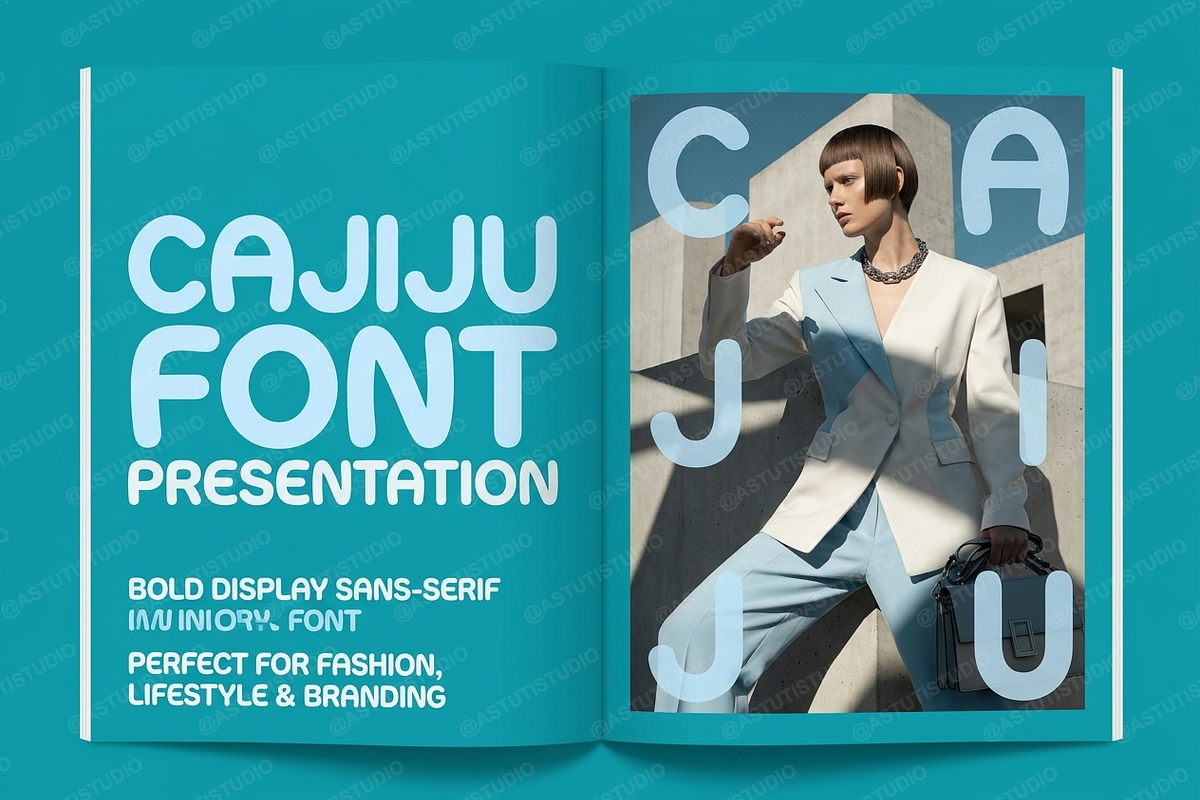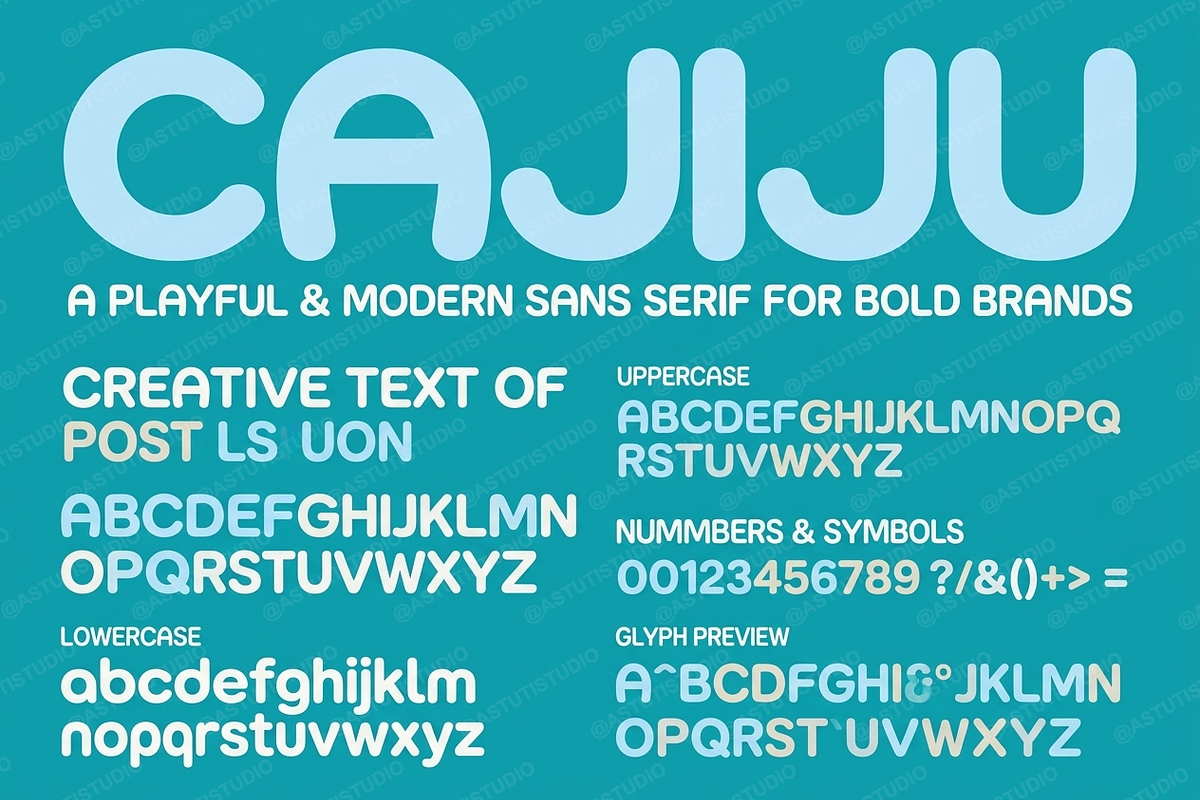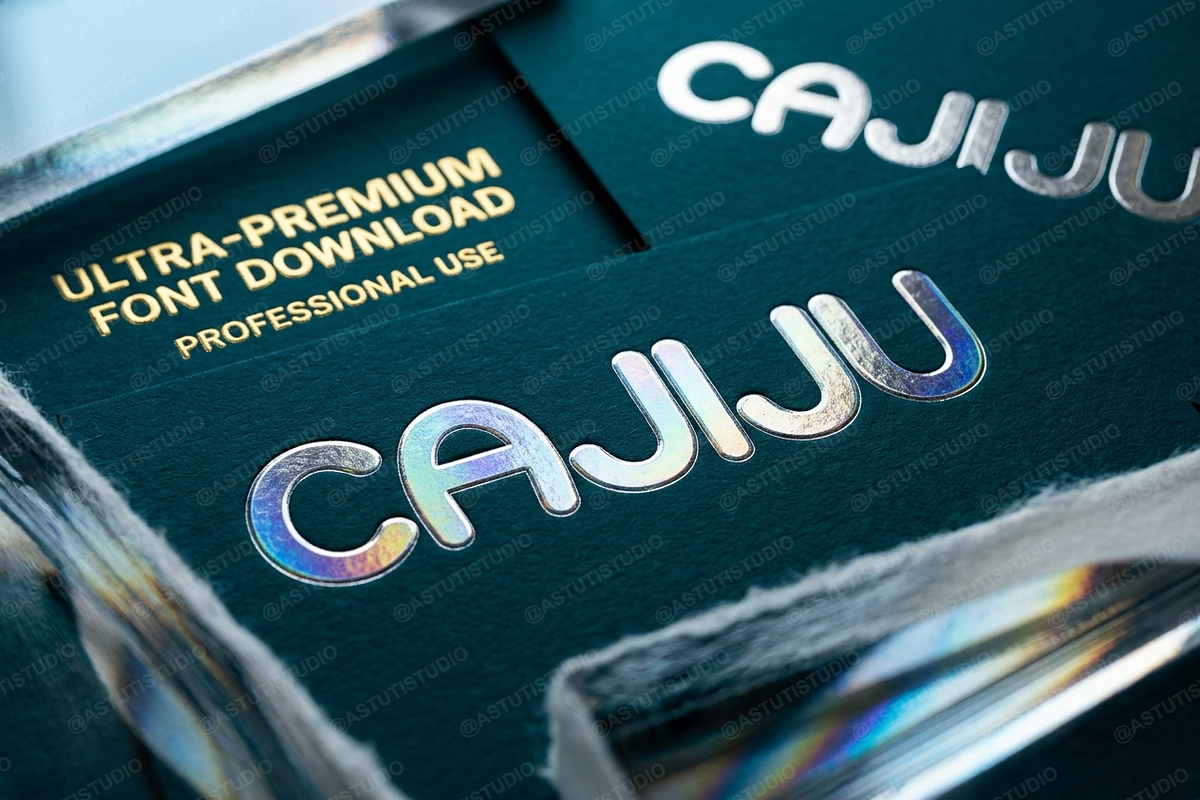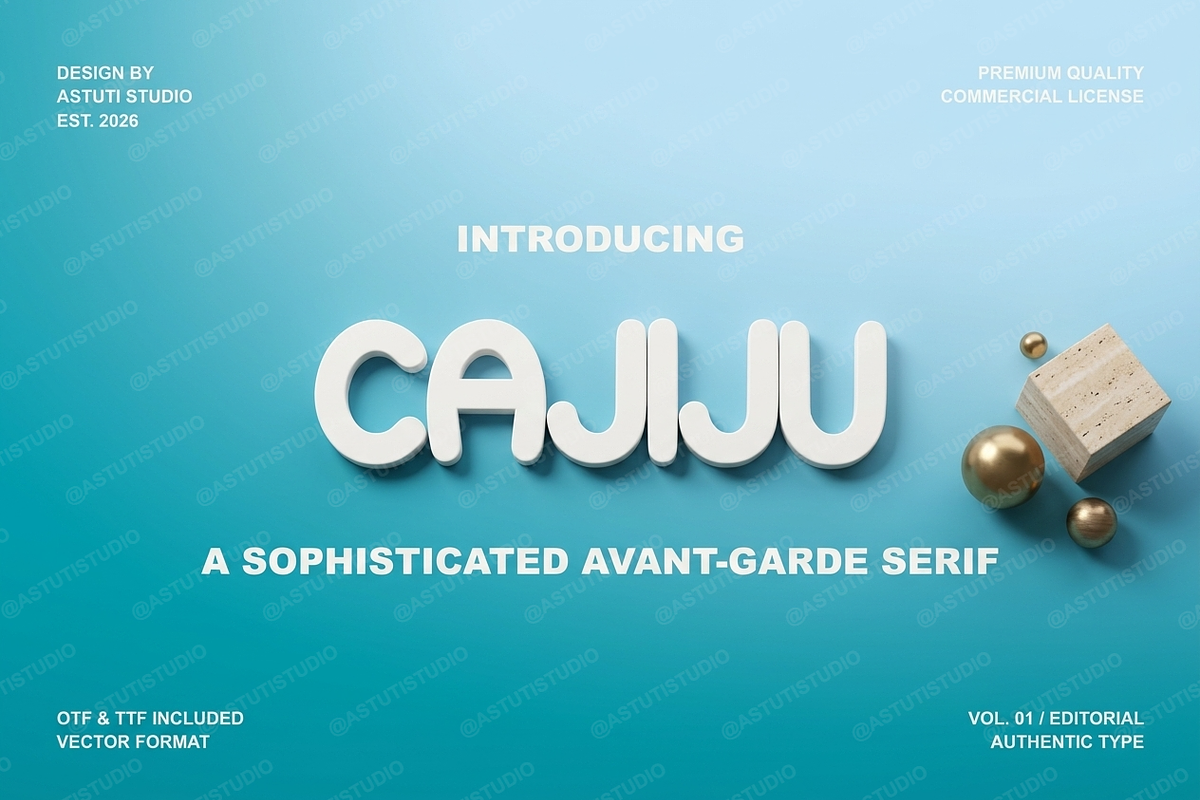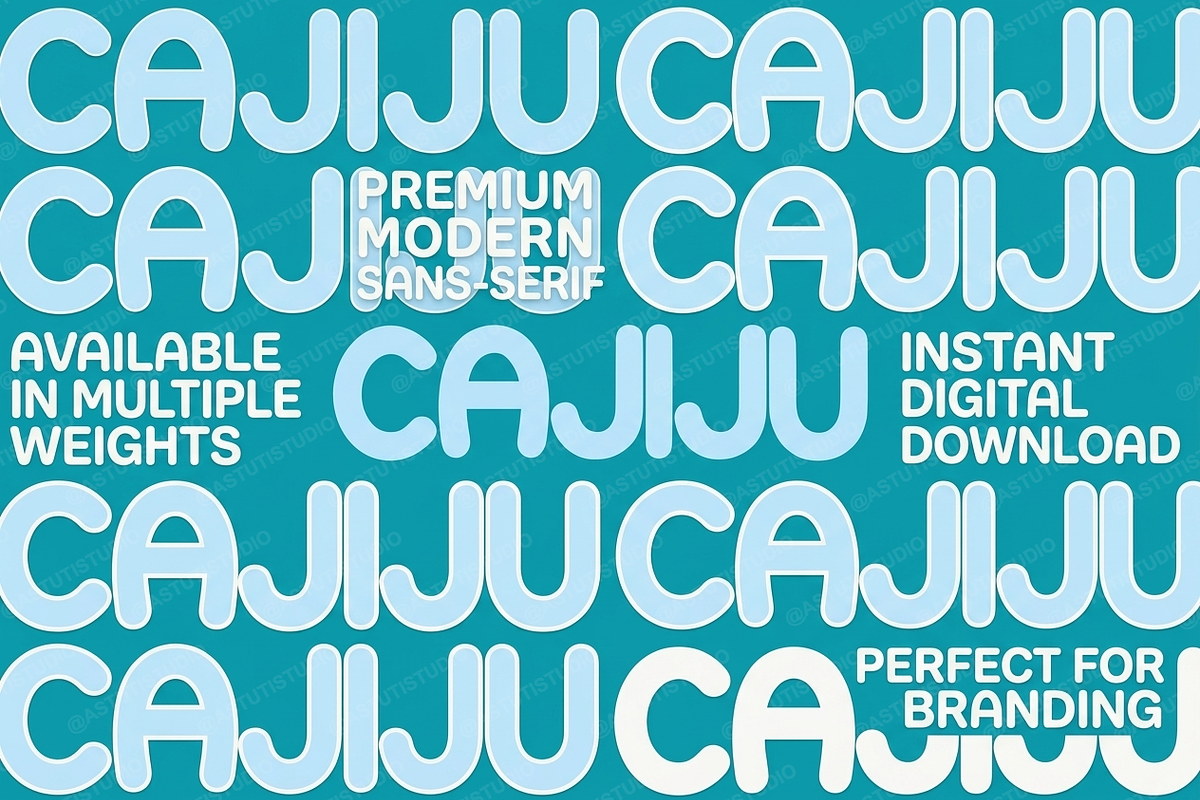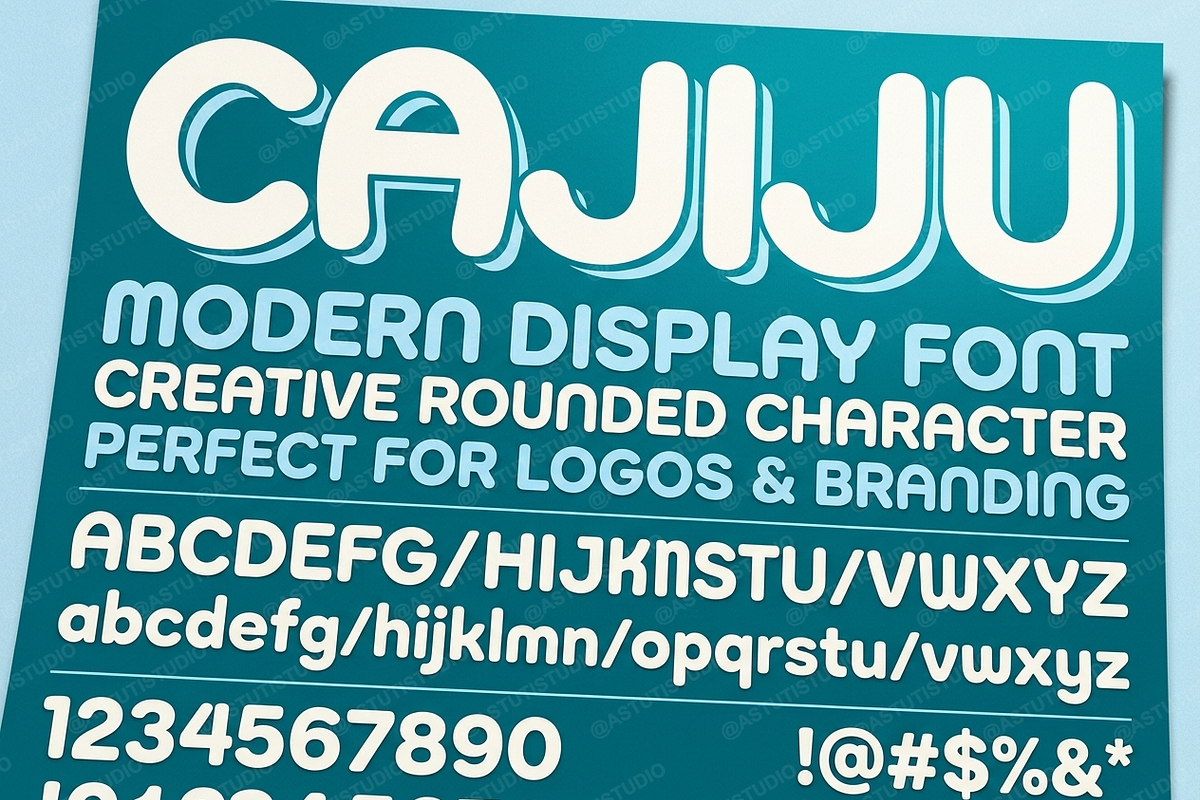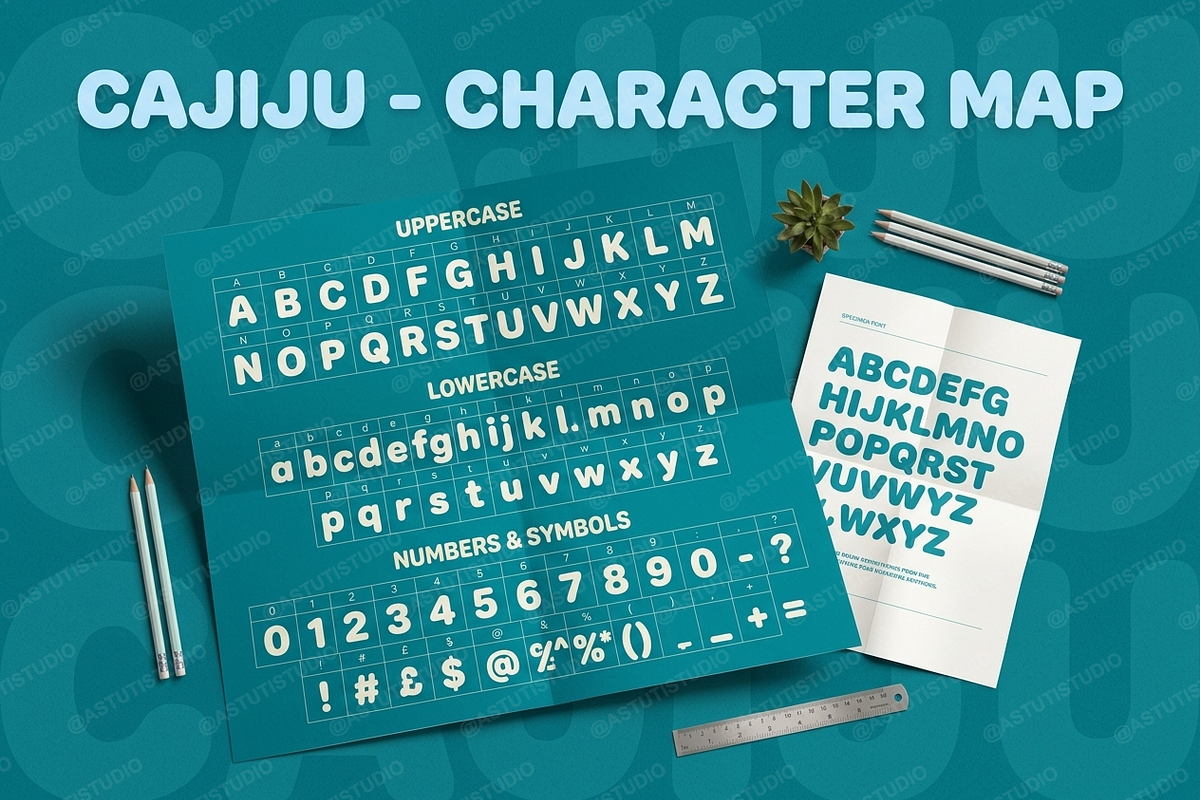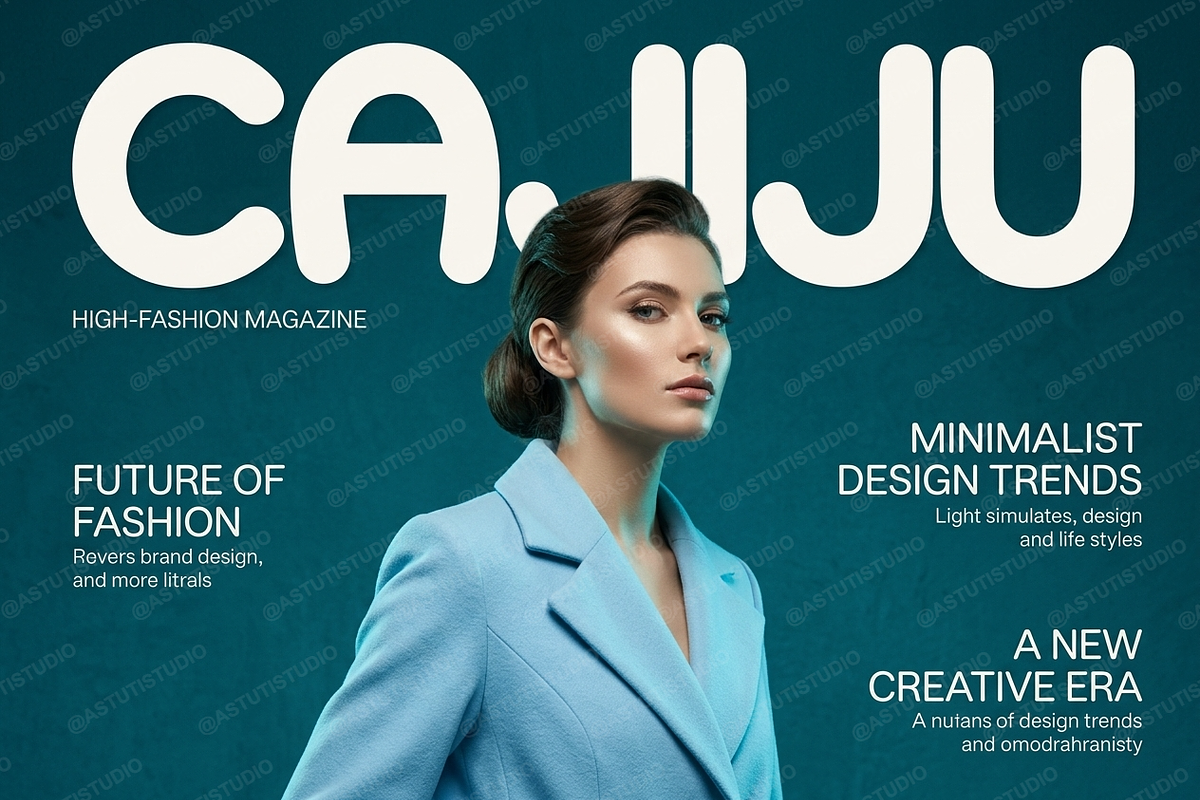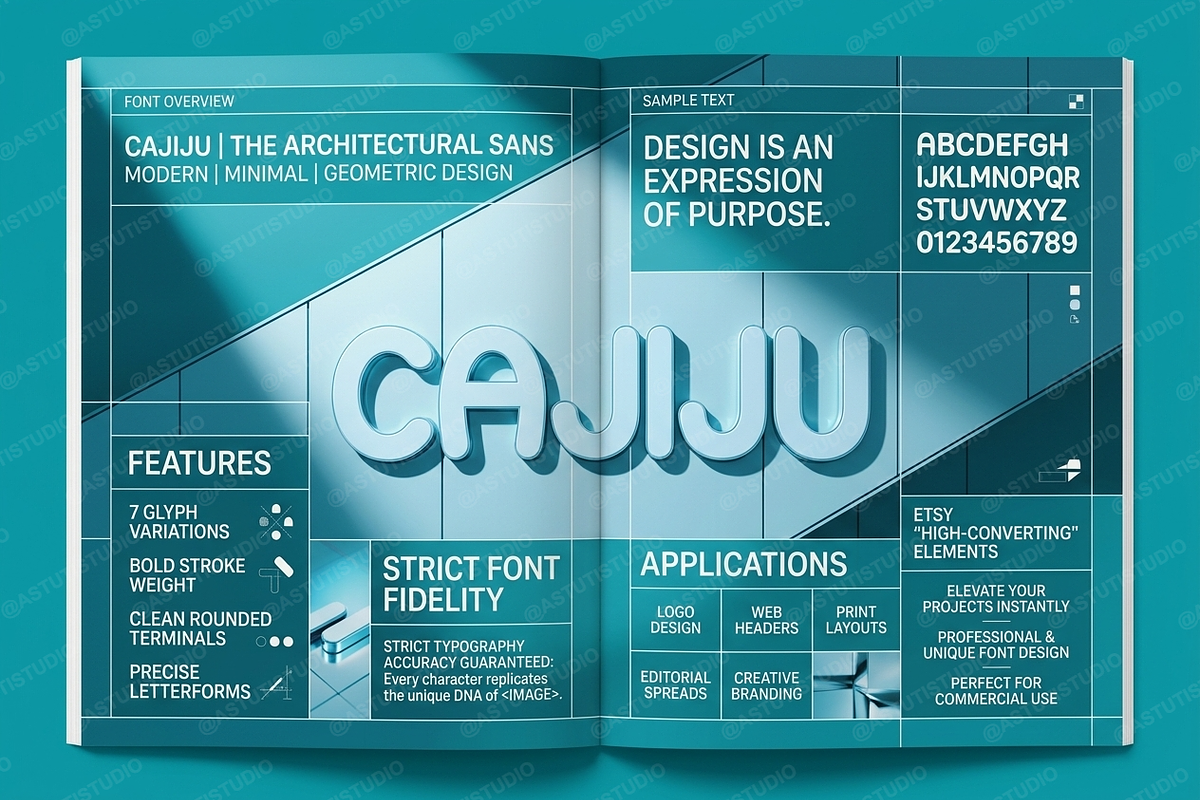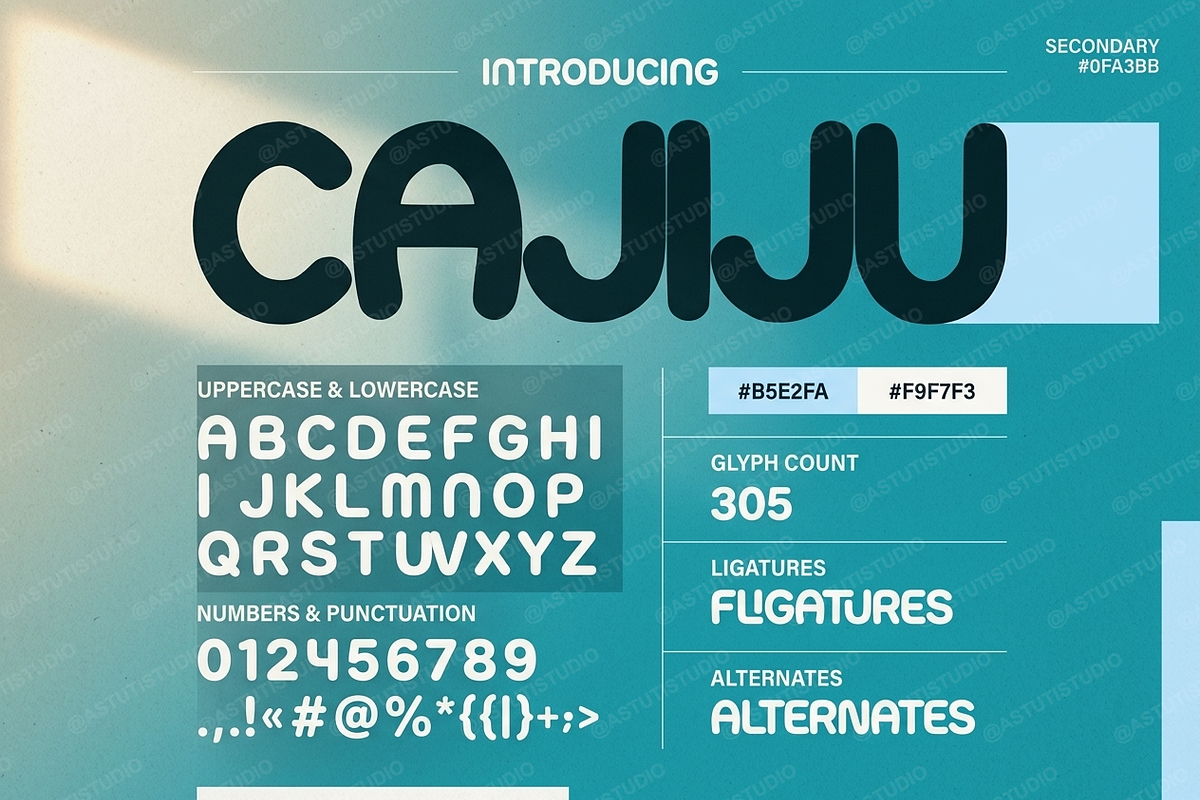
Cajiju - Sophisticated Serif
Cajiju | Elegant Serif Typeface
Elevate your design projects with Cajiju, a premium serif typeface meticulously crafted for high-end aesthetics. Inspired by modern luxury and editorial sophistication, Cajiju brings a timeless elegance to any layout, making it the perfect choice for boutique branding, high-fashion magazines, and curated social media content. Its refined letterforms and balanced proportions ensure that your message is delivered with clarity and style.
- Clean, high-contrast serif design
- Perfectly balanced letterforms for optimal readability
- Comprehensive multilingual support for global reach
- Elegant ligatures and stylistic alternates for custom looks
- Versatile performance across both print and digital media